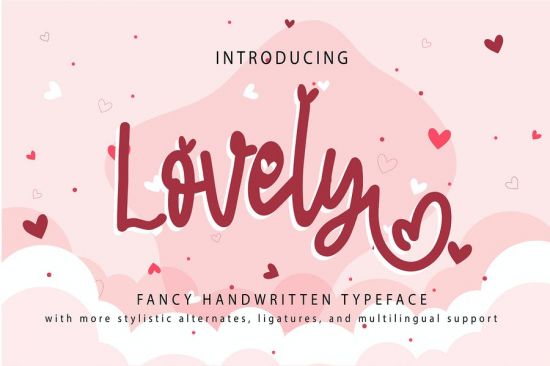
Lovely | Fancy Handwritten Typeface with a calligraphy style, So beautiful on invitation like greeting cards, branding materials, business cards, quotes, posters, and more!
The alternative characters were divided into several Open Type features such as Stylistic Sets, Stylistic Alternates, Contextual Alternate, SWASH and Ligature. The Open Type features can be accessed by using Open Type savvy programs such as Adobe Illustrator, Adobe InDesign, Adobe Photoshop Corel Draw X version, And Microsoft Word. And this Font has given PUA unicode (specially coded fonts). so that all the alternate characters can easily be accessed in full